Surprisingly Many Kana System Glyphs 02: “With Voiced Dots, Semi-Voiced Dots, and Small Scripts”
I introduced the story of the number of glyphs in the previous article of this series. Today, I would like to introduce points on creating them.
Kana with voiced dots and semi-voiced dots
It may not go well by only adding a voiced dot or semi-voiced dot to the original character as it is. The entire character may be reduced a little so that the dot can be seen as blackish, similar to the original character, and some part of the character may be shortened so that dot and stroke do not overlap – adjustments are made in accordance with each character.
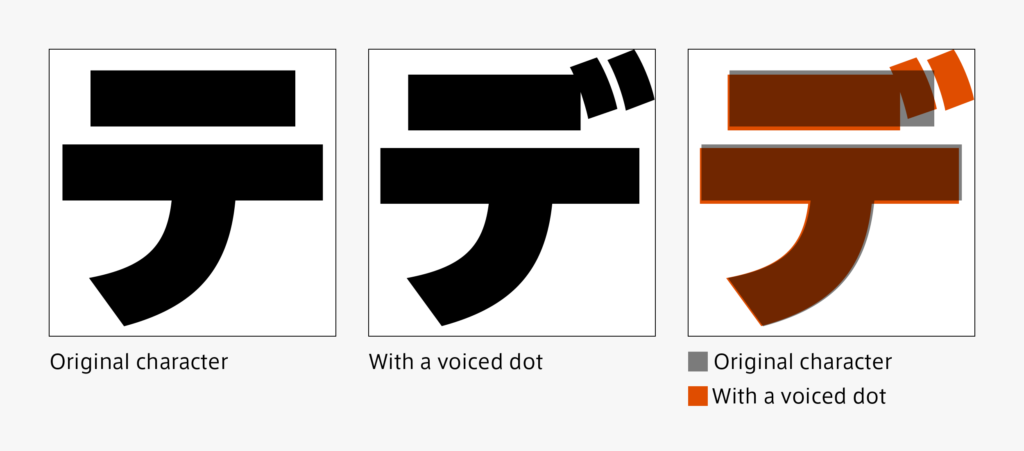
Apart from the original character adjustment, the arrangement and size of a voiced dot and semi-voiced dot are also adjusted by character. It is also a point to be noticed that a voiced dot and semi-voiced dot are seen as more or less the same at the time of typesetting a character.
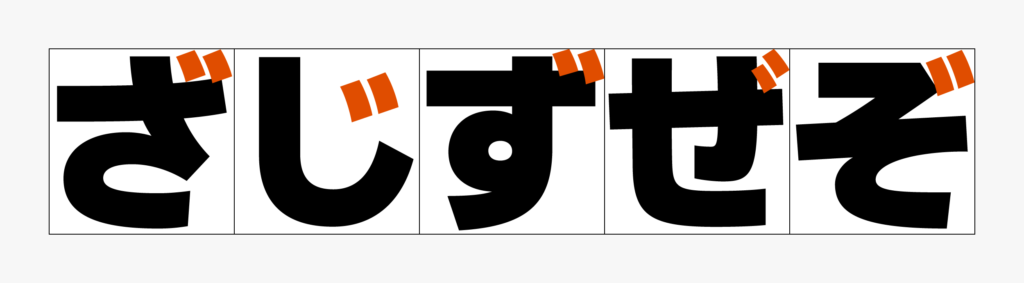
Kana in small script
When it is only reduced, the lines become thin, so the lines must be thickened together. While arranging the black wash with the other characters at the time of typesetting, if there is narrowed part due to reduction, it is also adjusted. Although it may differ depending on the actual creation, output of the original character in a slightly thicker weight, reduction, and adjustment are performed for creation in order.
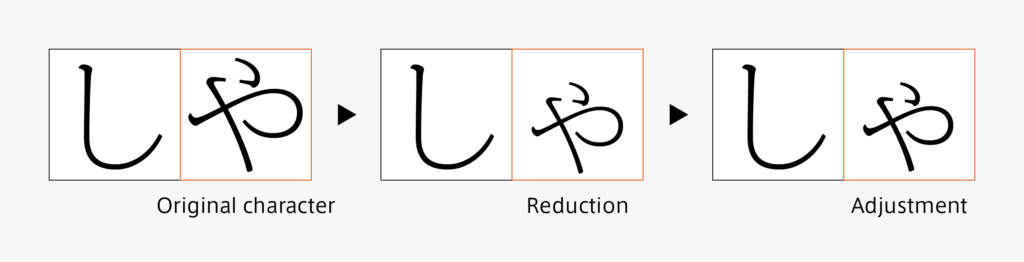
Do not forget to prepare kana in small scripts for vertical typesetting and horizontal typesetting, respectively.